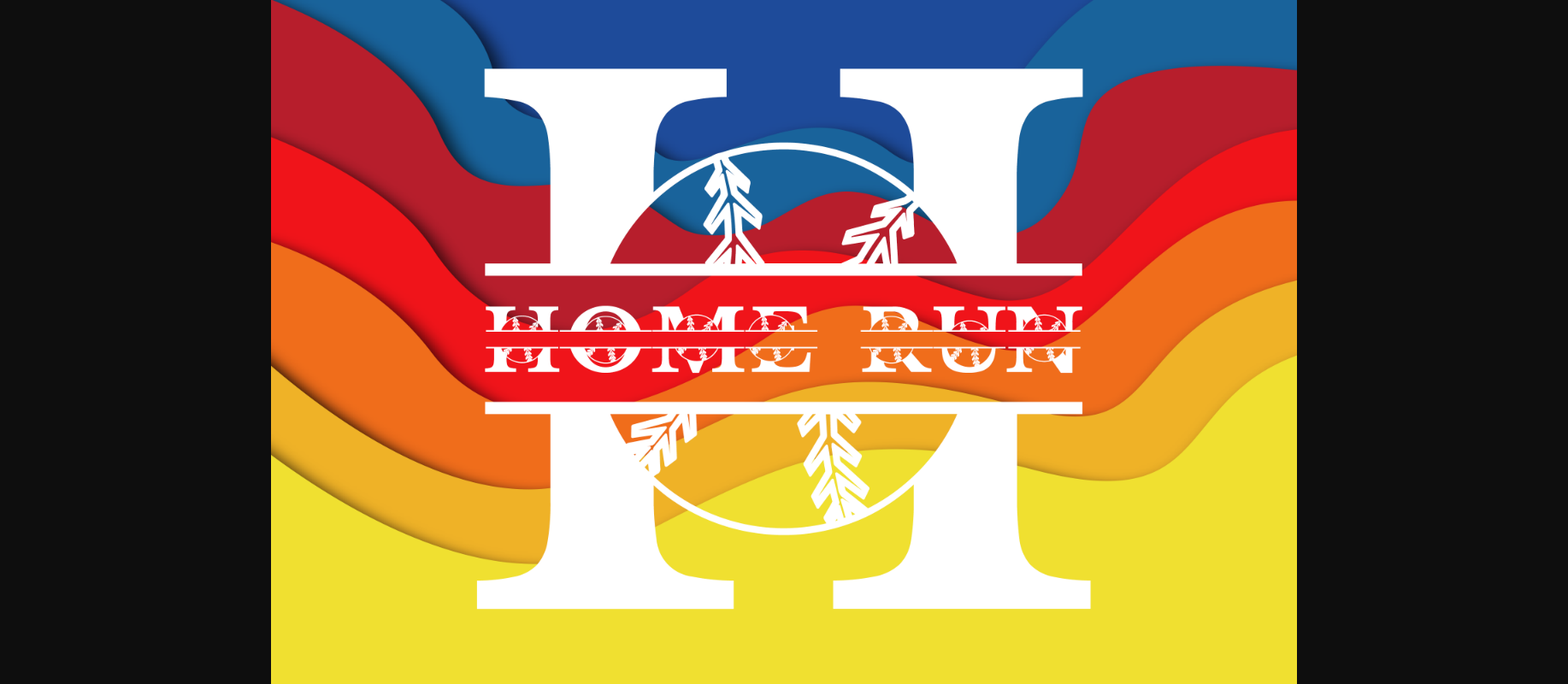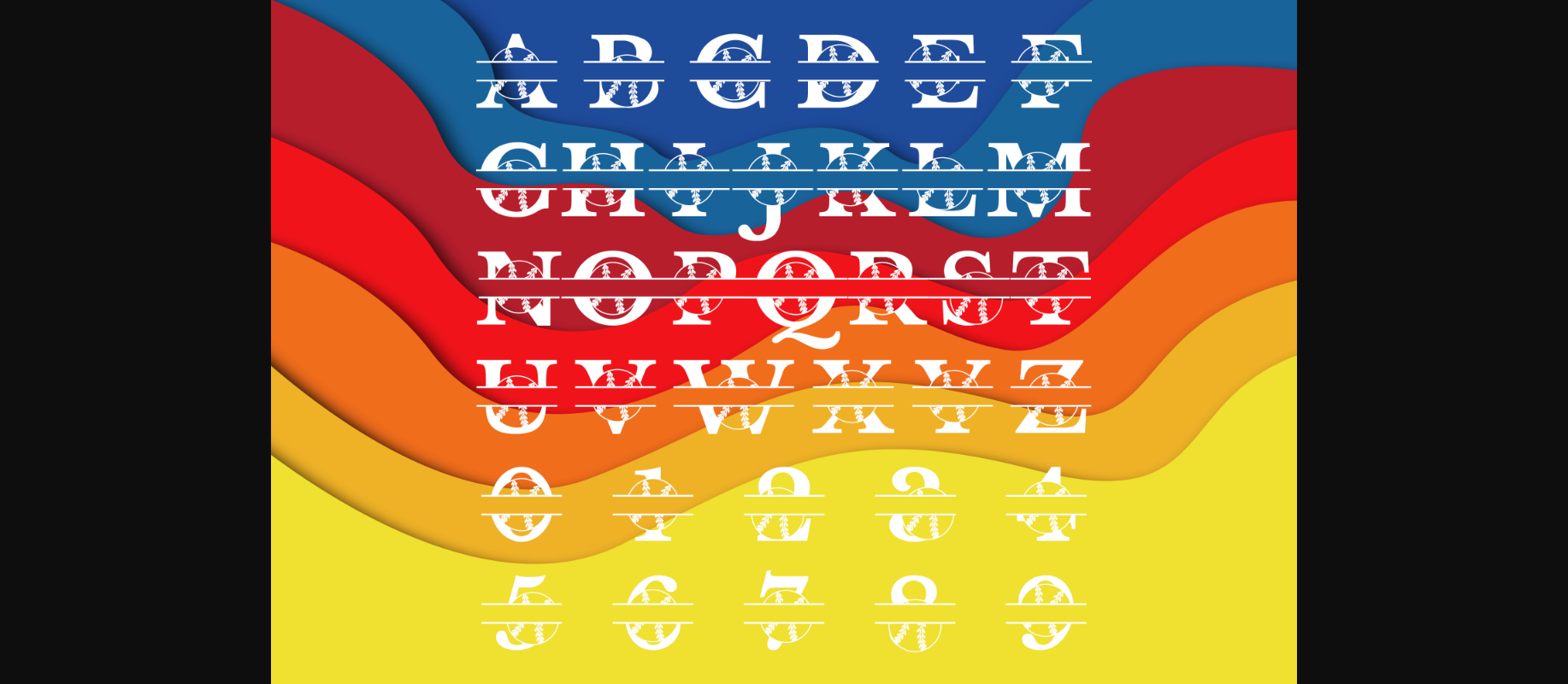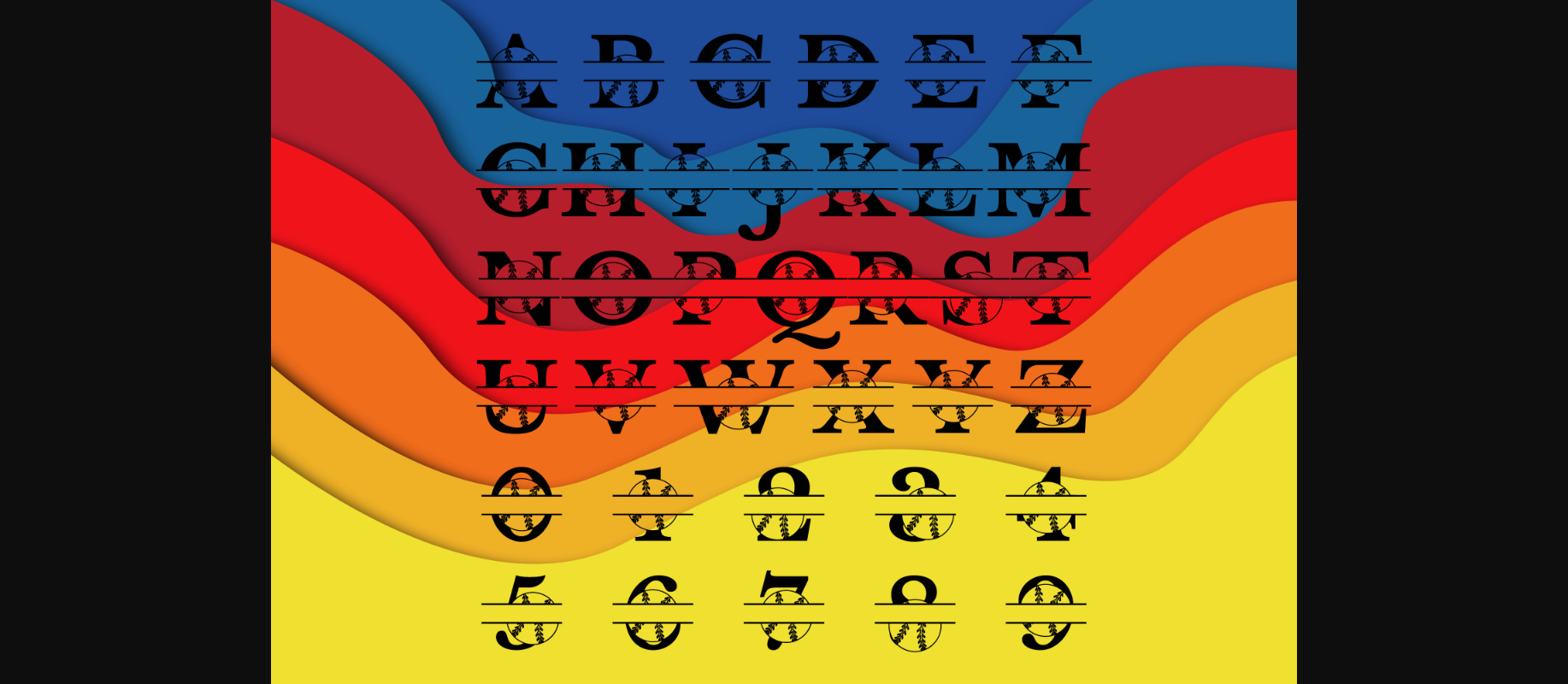
HomeDecorative FontsHome Run Font Decorative Fonts Home Run Font FacebookXPinterestWhatsApp 1 of 5 ... Home Run Font Poster 2... Home Run Font Poster 3... Home Run Font Poster 4... Home Run Font Poster 5... About Home Run Font Home Run is an incredibly cool decorative font. Whether you use it for custom designs, DIY crafts, or just any creation that requires a lovely touch, this font will be an amazing choice. DOWNLOAD NOW People also explored Summer Time Font Imago Font Passionfruits Font Boldwell Font Influential Font Agatony – Handwritten Font Wedding Vintage Font HT Pasticceria Sweetie Romance Font 399 0 TagsHome Run Font Previous articlePortabell FontNext articleFingera Font LEAVE A REPLY Cancel reply Comment: Please enter your comment! Name:* Please enter your name here Email:* You have entered an incorrect email address! Please enter your email address here Website: Save my name, email, and website in this browser for the next time I comment. Personal Use Free Rogueland Personal Use Free Read more about this font Eloquence Personal Use Free Read more about this font Knox Personal Use Free Read more about this font Hillgates Personal Use Free Read more about this font BLOG Fonts That Capture the Spirit of New York City New York City is more than just a place—it’s an experience, a rhythm, a visual language... How to Install and Use Fonts on Windows, macOS, and Web Projects Top 10 Handwritten Fonts That Elevate Your Designs Modern Sans-Serif Fonts That Brands Love in 2025